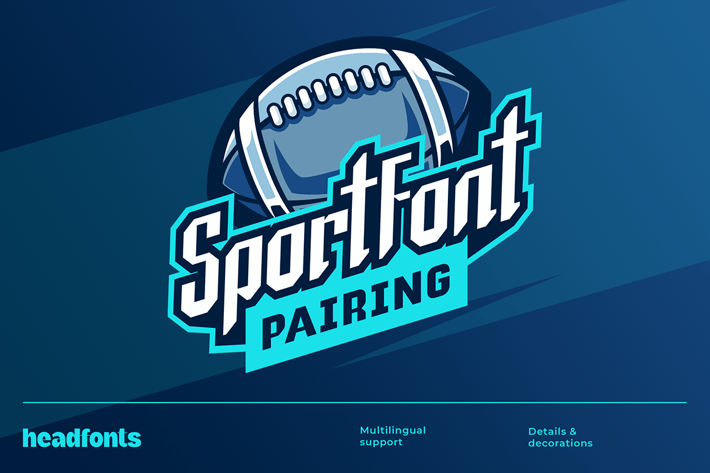
Sport Font Pairing
Headfonts is happy to present the Sport Font Pairing, a collection of sans serif athletic fonts, specially designed for the sports branding industry. The Sport Font Pairing is dynamic, expressive, and competitive therefore the perfect choice for any design project that needs an active, strong look such as sports logos, labels, posters, sport apparel designs, sports club branding, and much more.
Stand out in the crowd and take your designs to the next level with the help of the Sport Font Pairing!